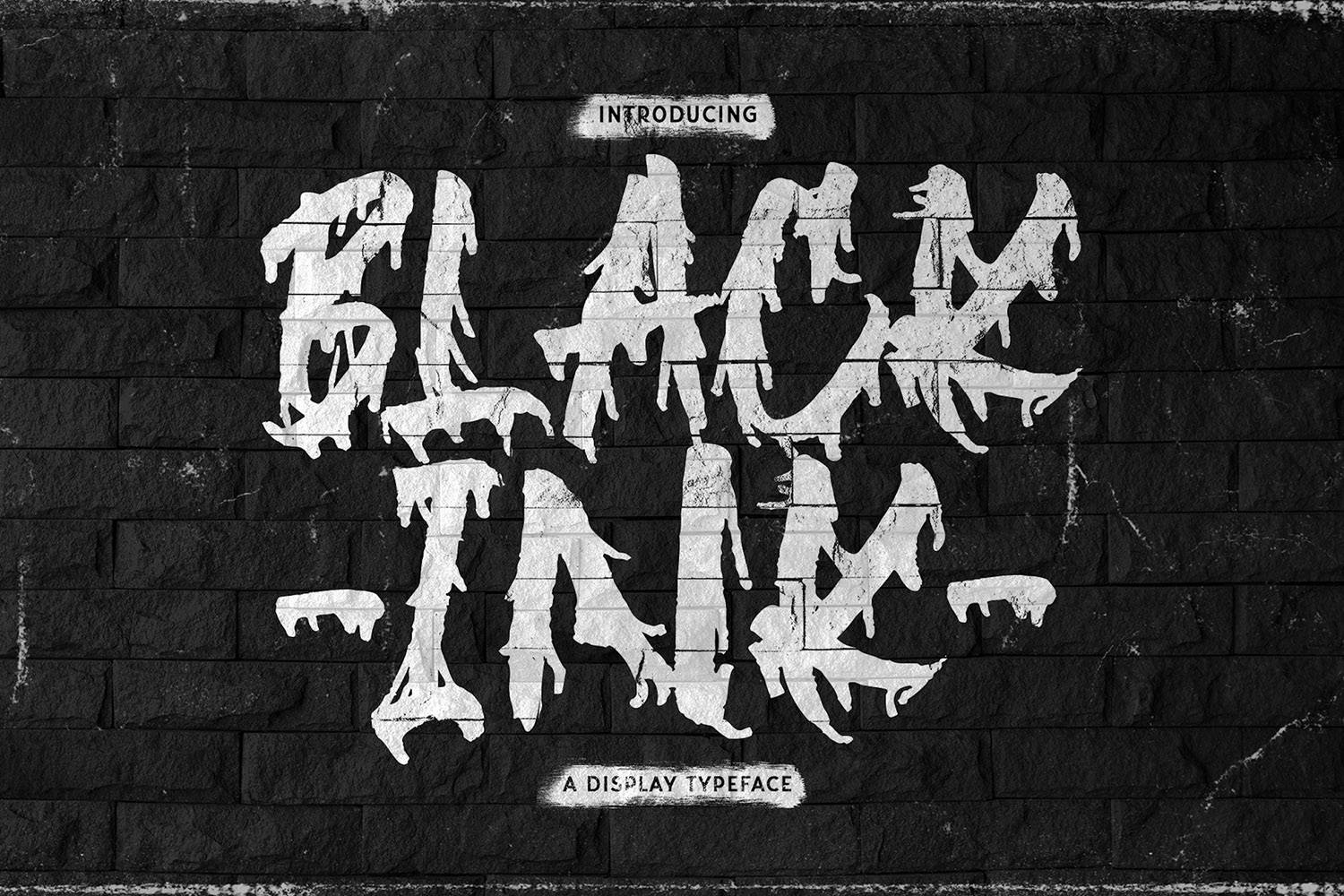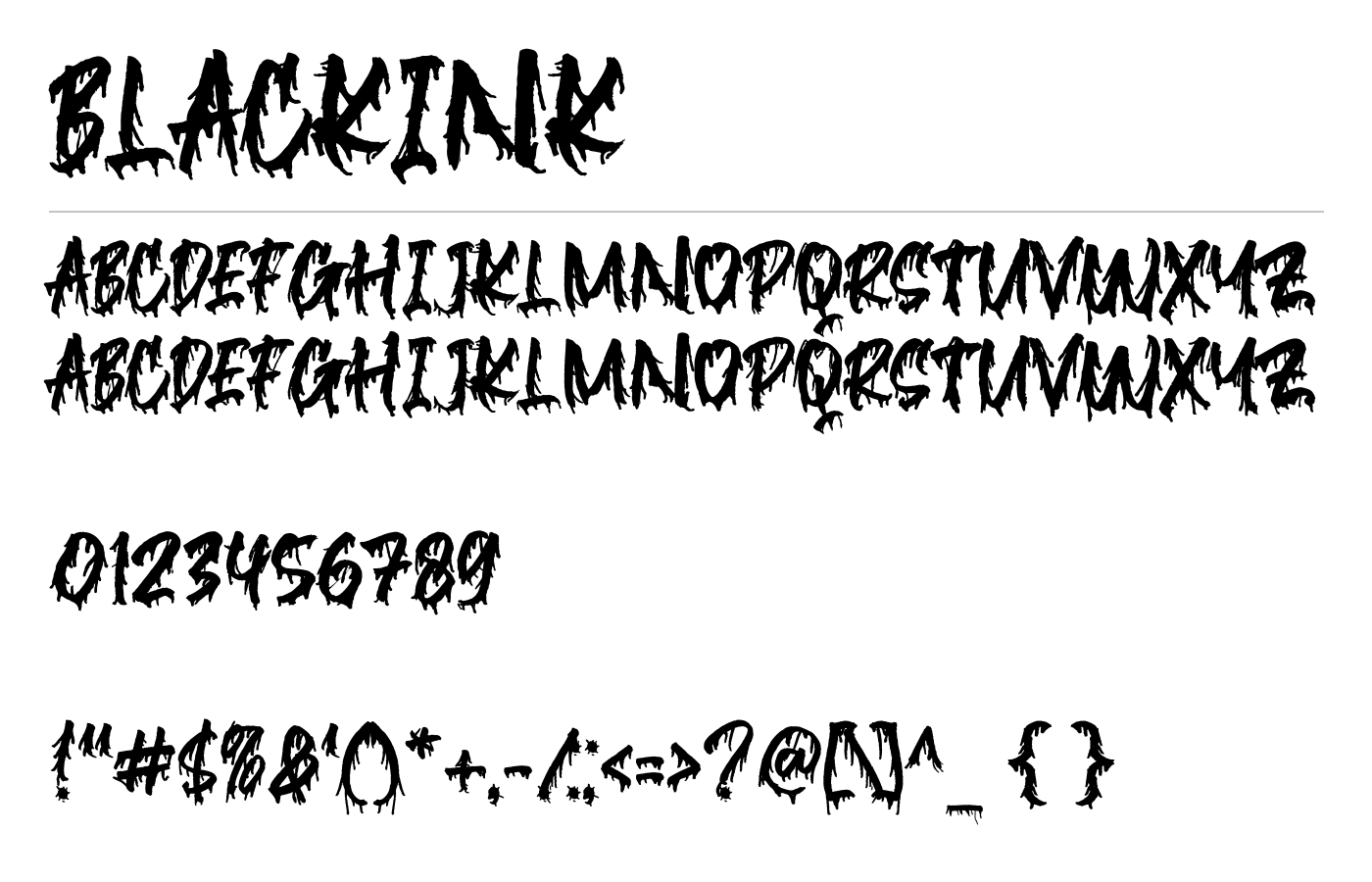
Blackink is a bold, decorative display font with a rough, dripping ink effect that gives it a dark, edgy personality. Its irregular, jagged letterforms and dense weight make it perfect for horror-themed designs, alternative posters, or eye-catching headlines where a strong, dramatic impact is needed. This font works best in creative branding or graphic projects that want to convey intensity and a rebellious vibe.
Blackink Font
About Blackink Font